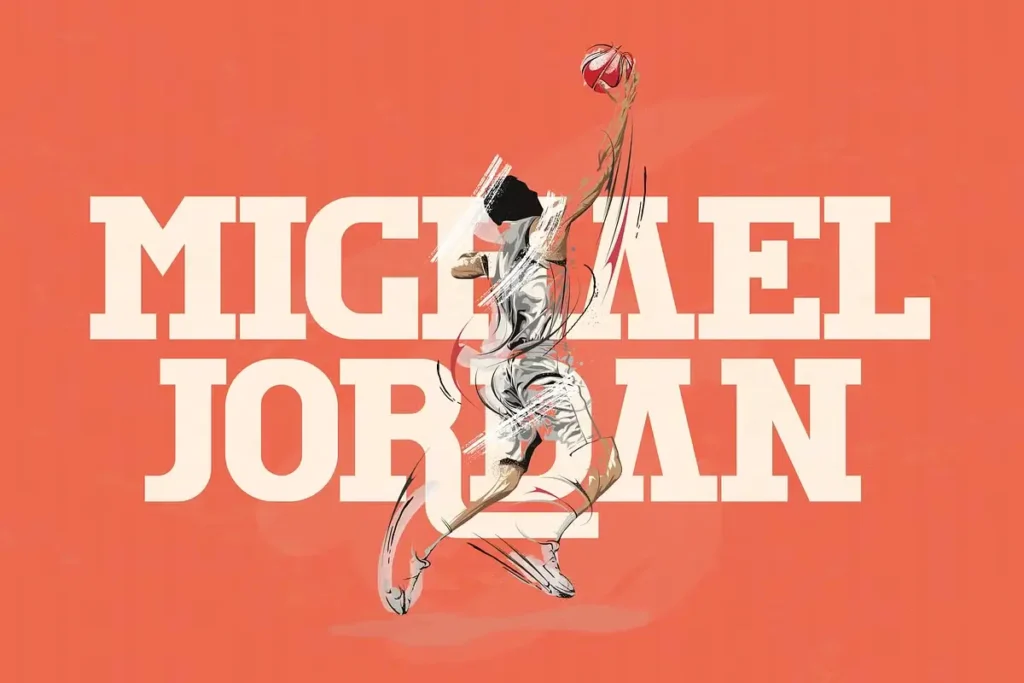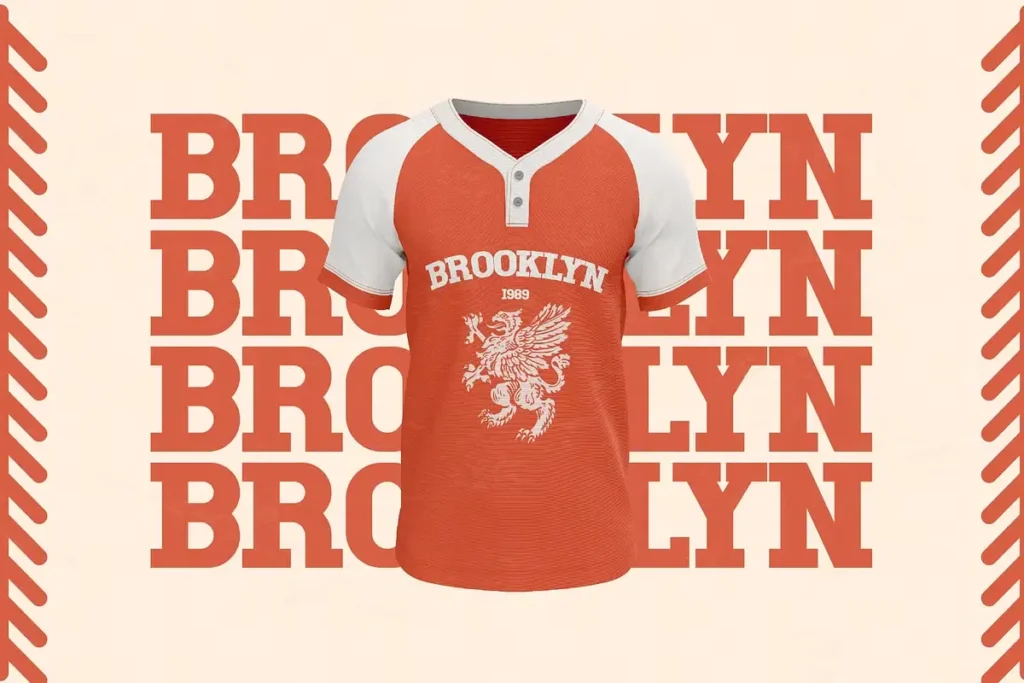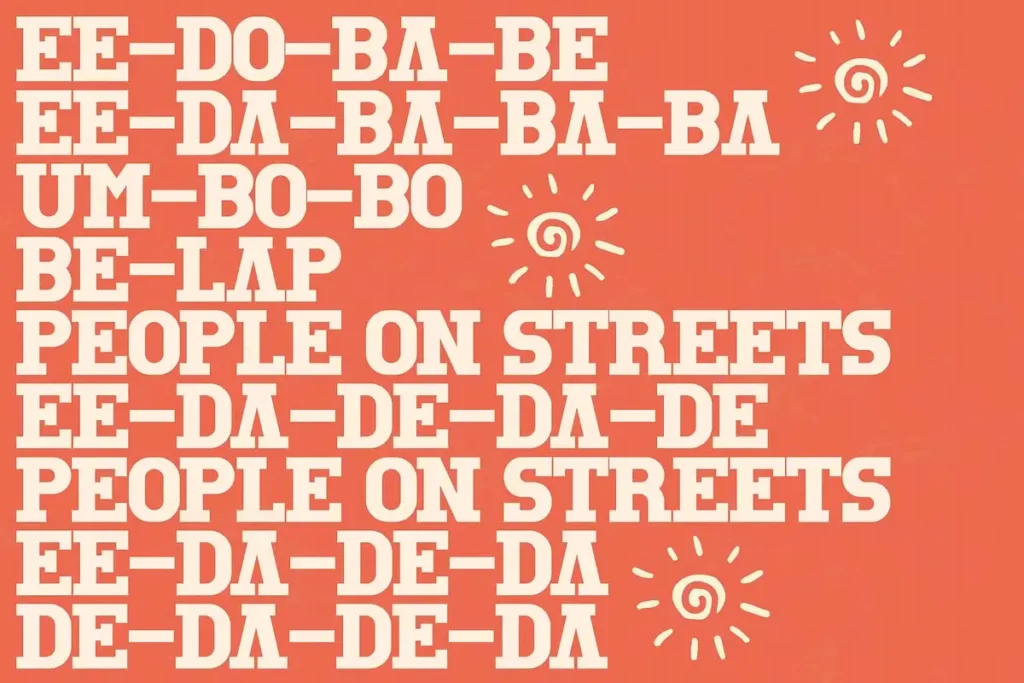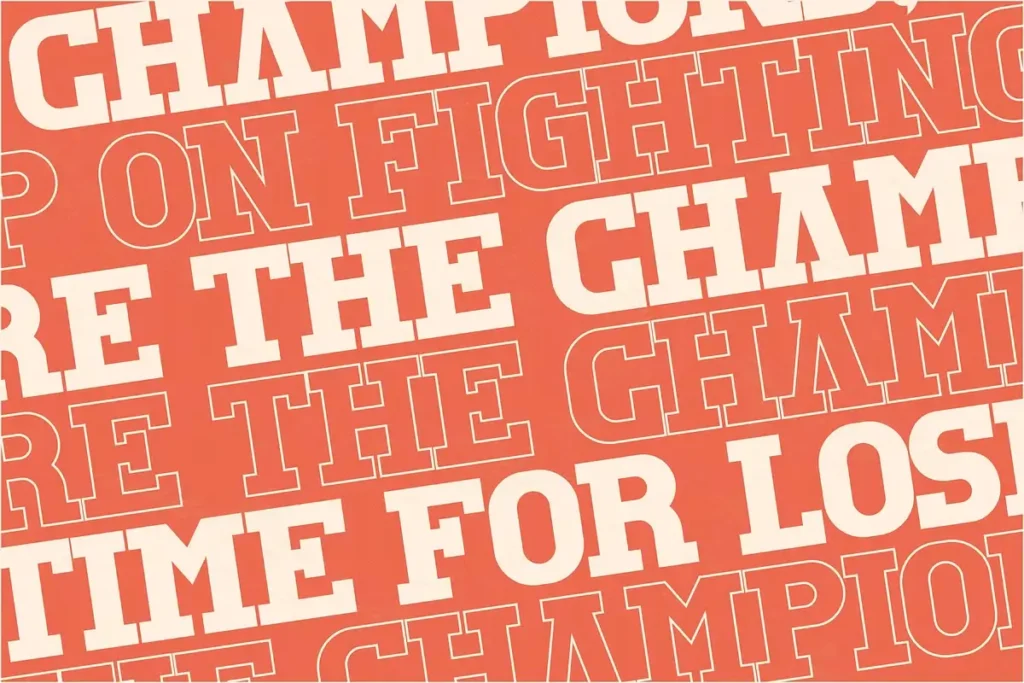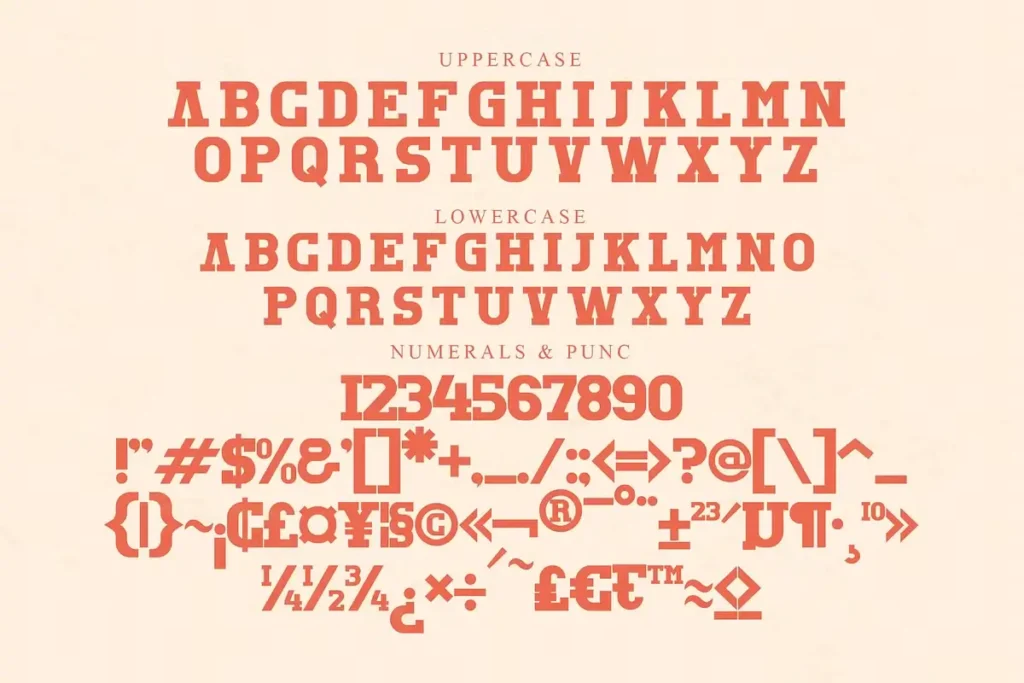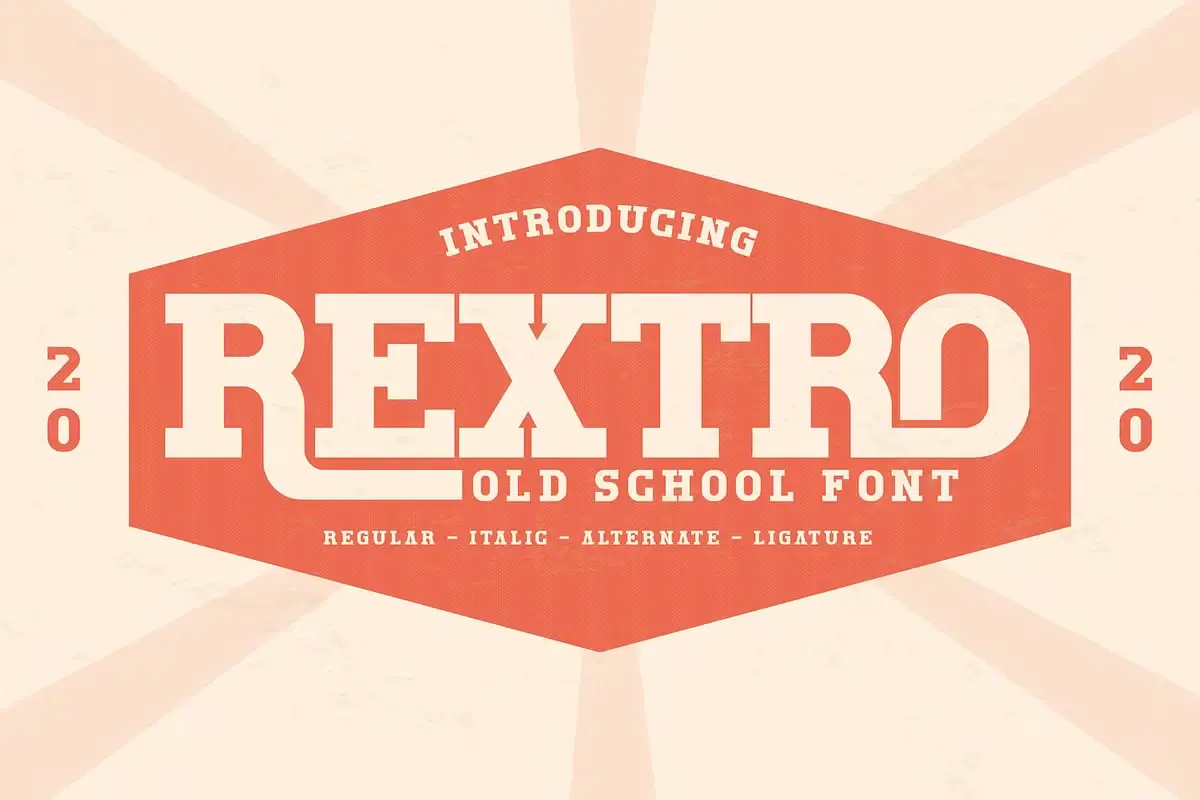
Rextro Font, designed by Storytype, is a classic serif typeface that blends traditional elegance with a modern touch. Its refined details and stylish curves make it a versatile choice for various design projects. Whether you’re looking for a timeless or contemporary aesthetic, Rextro offers a unique balance that enhances any visual composition.
This font is ideal for logo designs, movie and book titles, and fashion label tags. Its sophisticated appearance makes it a great choice for branding, adding a sense of luxury and professionalism. Additionally, Rextro is perfect for lettering quotes, invitations, or any creative project that requires a touch of class.
With its distinctive style, Rextro Font elevates designs by bringing a sense of refinement and artistic charm. Whether used for print or digital media, it stands out beautifully, making a lasting impression. If you’re seeking a font that combines tradition and modernity, Rextro is the perfect solution.